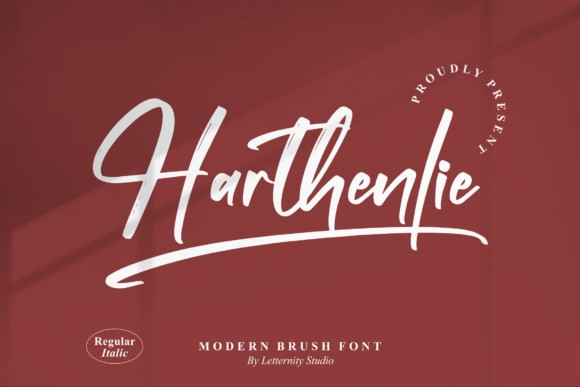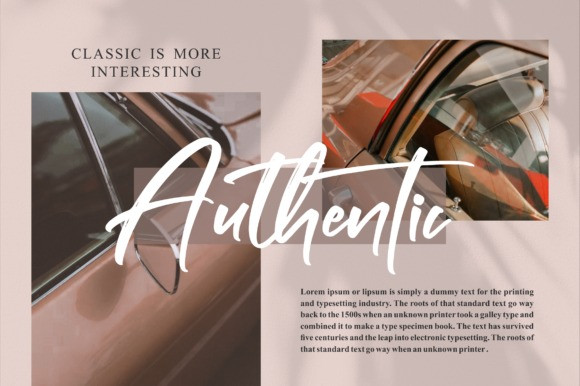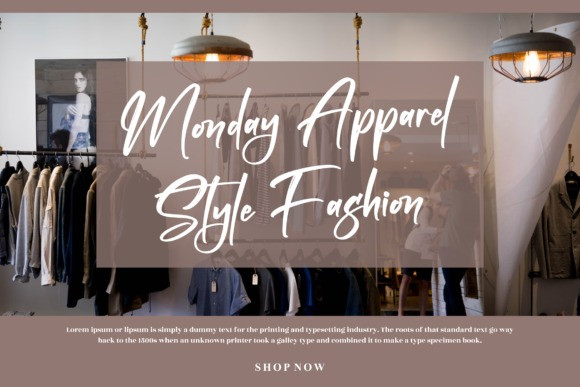
Harthenlie Font
Harthenlie is a beautiful script font. It is suitable for any projects such as: logos, branding projects, homeware designs, product packaging, mugs, quotes, posters, shopping bags, t-shirts, book covers, name card, invitation cards, greeting cards, label, photography, watermark, special events, and all your other lovely projects that need a beautiful script taste.